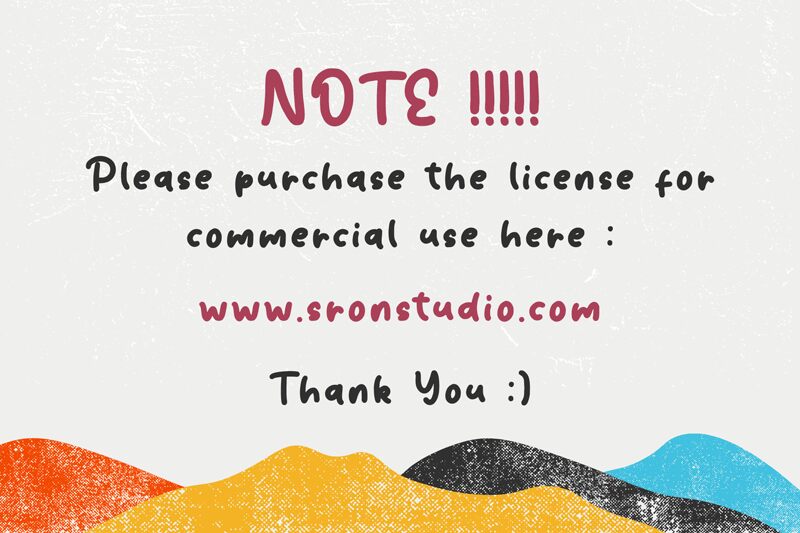
Ohayou Oniichan
Ohayou Oniichan font by Sronstudio greets you with a casual, friendly vibe that is both organic and approachable. Rounded and smooth, the handwritten font brings creativity wherever it goes! Distinctive letters and glyphs are presented to be used on their own or in combination for even greater results.